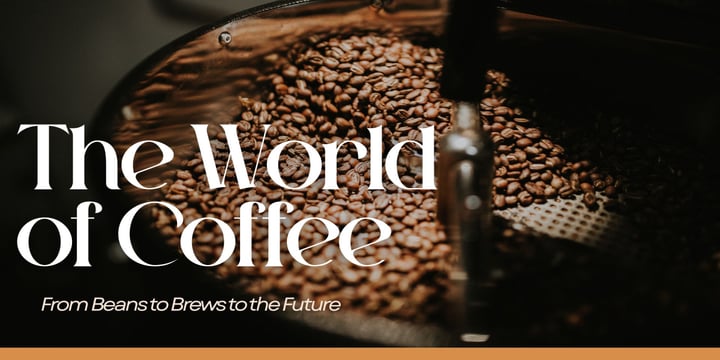
Coffee Serif bundle
Coffee Serif Classics is a refined collection of elegant, high-contrast serif typefaces. Featuring dramatic stroke differences, crisp hairlines, and sophisticated shapes, these fonts deliver a timeless editorial look suitable for luxury branding, magazine headlines, and premium design projects. This bundle provides designers with a selection of graceful, expressive serif styles that add instant refinement and visual impact to any layout.